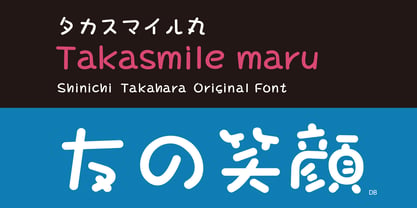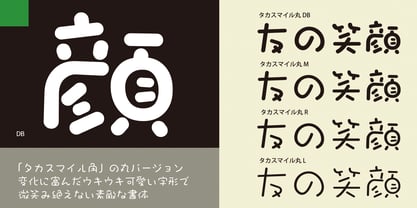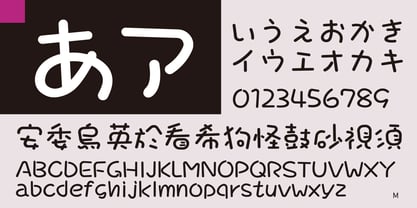
Takasmile-maru
by Taka Design Production
The Takasmile-maru Font Family was designed by and published by Taka Design Production. Takasmile-maru contains 4 styles and family package options. More about this family
This is a round version of “Takasmile-kaku”. It is a lovely typeface with a varied and cute character shape that will not fail to bring a smile to your face.